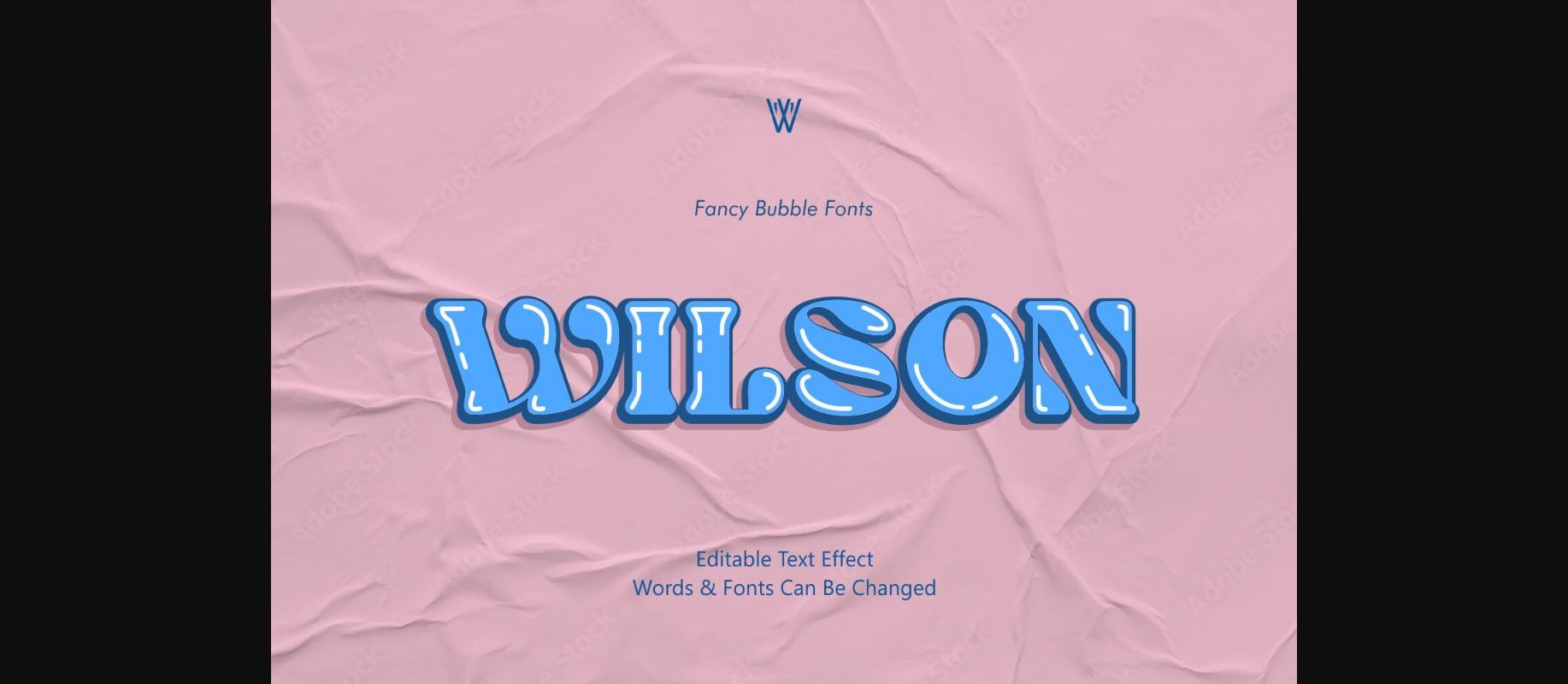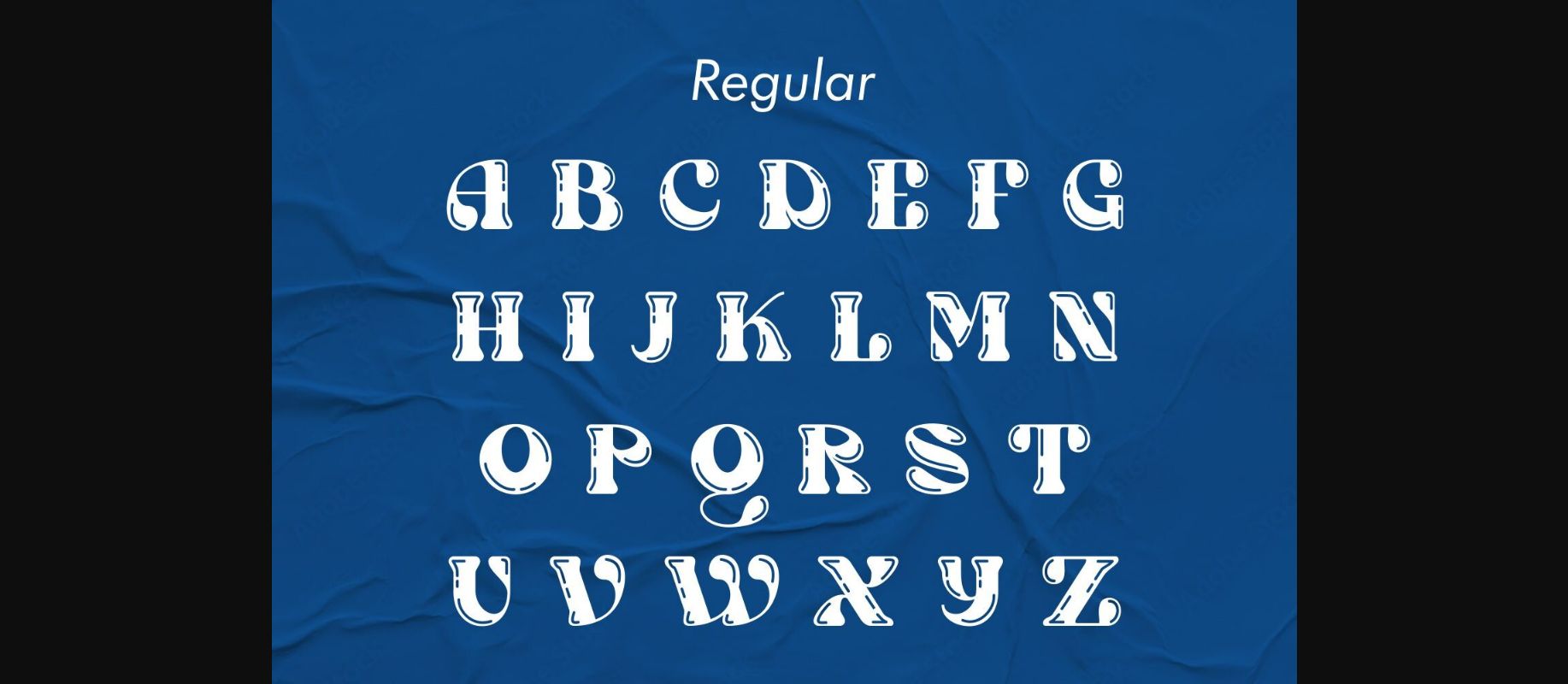
About Wilson Font
Font selection is not a trivial matter. There is a standard, consideration, purpose, and meaning behind it. Typography influences consumer perception, making messages and communication directions sharper. Unfortunately, typography is often underestimated and as a result, most ads are visually sluggish.
This Wilson font belongs to the categories Display font, Fancy font, Retro font, and Bubble font.
This decorative font is quite unique, and sometimes it is often used according to brand or logo requirements. This font can add personality to your business. The personality that I can explain to you interpretatively is the impression of being cheerful, energetic, applicable, and resilient, just like the Cooper Black font which does take elements from the font.
This Wilson font belongs to the categories Display font, Fancy font, Retro font, and Bubble font.
This decorative font is quite unique, and sometimes it is often used according to brand or logo requirements. This font can add personality to your business. The personality that I can explain to you interpretatively is the impression of being cheerful, energetic, applicable, and resilient, just like the Cooper Black font which does take elements from the font.